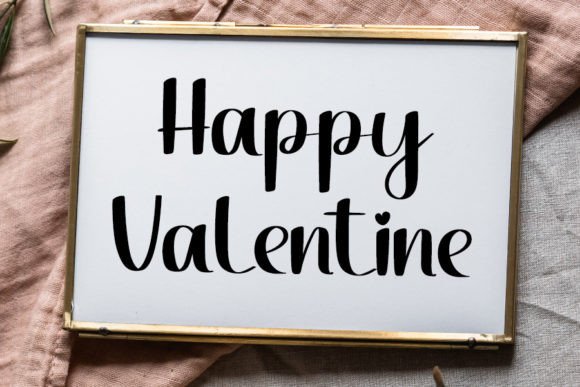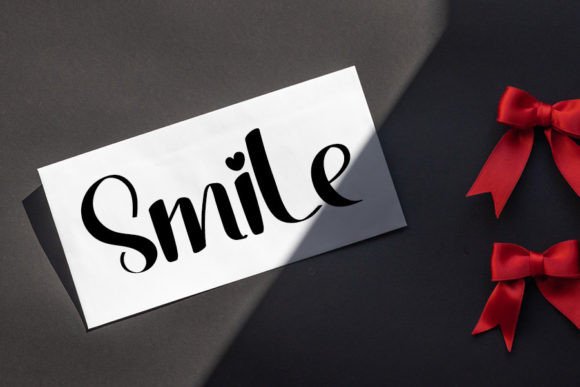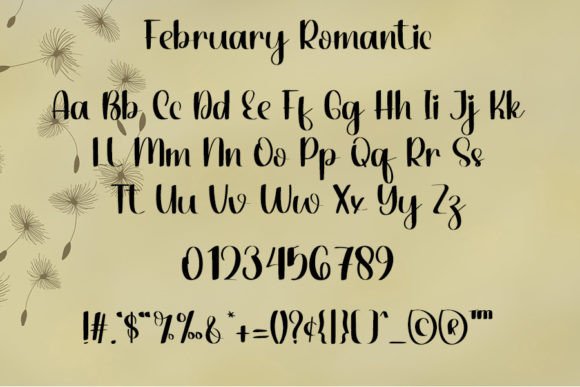
Adding a Touch of Romance to Your Designs
There’s something magical about the first spark of creativity – the moment when a blank page transforms into a vibrant idea. As designers, we’ve all experienced that rush of excitement when a new concept begins to take shape. For those special moments, we need the right tools to bring our visions to life. That’s where February Romantic Font comes in – a beautiful handwritten font designed to elevate your business needs and make your creative projects truly unforgettable.
Whether you’re crafting a wedding invitation, designing a birthday card, or creating a logo, the February Romantic Font is the perfect companion to add a touch of elegance and sophistication. With its versatility and charm, this font is a valuable asset for designers who want to make a lasting impression. By incorporating the February Romantic Font into your designs, you’ll be able to convey your message in a way that’s both personal and professional.
February Romantic Font Key Features
- Unique Characteristics: Hand-drawn, cursive script with elegant and romantic feel, perfect for wedding invitations, love letters, and other special occasions
February Romantic Font Review
When I first laid eyes on the February Romantic Font, I was immediately struck by its charming aesthetic. ✨ The delicate, cursive script and intricate details evoke a sense of whimsy and romance, perfect for Valentine’s Day or any occasion that calls for a touch of sweetness.
- Unique and feminine design that sets it apart from more generic fonts
- Excellent for creating a romantic atmosphere in invitations, cards, and other design projects
- Works well for body text, making it easy to read and understand
- May not be suitable for larger display text, as it can become too ornate and overwhelming
- Not ideal for headlines or titles, as it may not provide enough visual impact
- May not be the best choice for digital design, as it can be difficult to read on smaller screens
Overall, I think the February Romantic Font is a lovely addition to any designer’s toolkit. While it may have some limitations, its unique charm and character make it a great choice for the right projects. Just be sure to use it thoughtfully and in context.
The February Romantic Font is perfect for:
- Valentine’s Day designs
- Love-themed social media posts
- Anniversary cards and gifts
For the most effective use of the font, keep your text short and sweet, and balance it with bold graphics and bright colors.
Alternatives to “February Romantic Font” for Designers
Cream Soda is a elegant script font with a touch of vintage charm. It’s perfect for creating a romantic and whimsical atmosphere in your designs. When to use: wedding invitations, greeting cards, and other sentimental projects.
Compared to February Romantic Font, Cream Soda has a more subtle and delicate feel, making it suitable for a wider range of designs.
Great Vibes is a modern script font with a relaxed and casual vibe. It’s ideal for creating a sense of playfulness and fun in your designs. When to use: event invitations, social media graphics, and other projects that require a lighthearted tone.
Compared to February Romantic Font, Great Vibes has a more energetic and carefree feel, making it perfect for designs that need a boost of enthusiasm.
Carolyna Pro is a beautiful script font with a touch of sophistication and elegance. It’s perfect for creating a luxurious and high-end atmosphere in your designs. When to use: luxury branding, high-end event invitations, and other projects that require a sense of refinement.